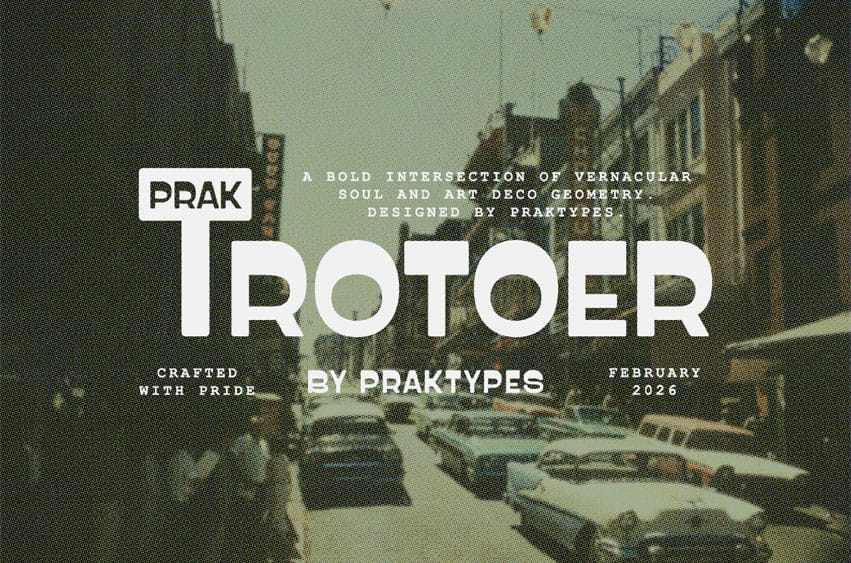
Prak Trotoer Font is inspired by vintage storefront signage found along the streets of Spain and Italy—from old bakery windows to hand-painted letters faded by time.
This typeface captures letterforms that are functional yet full of character: bold, firm, slightly rigid, yet warm and deeply human. It draws from the visual language of Southern European signage, where typography is not merely informative, but an integral part of the urban landscape itself.
Typeface Details:
- Bold display sans-serif typeface
- Uppercase & lowercase characters
- Arrows and numerals
- 442 glyphs
- Stylistic alternates
- Fractions
- Numerals & punctuation